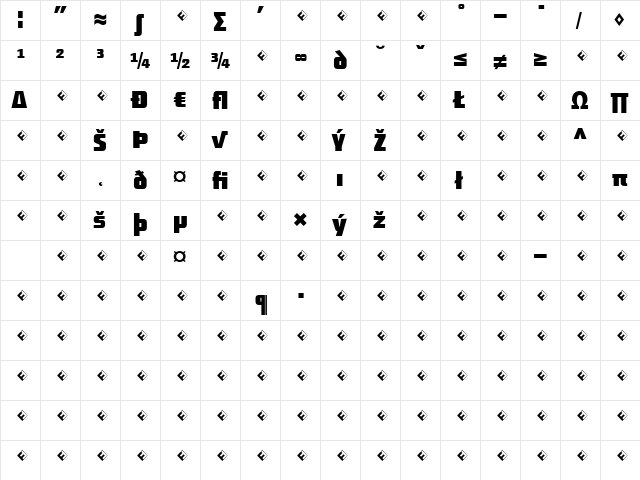
District-BoldAltExpert Regular
| Foundry | FontShop International |
| Designer | Albert Boton |
Design Context for District-BoldAltExpert Typeface
District-BoldAltExpert takes a measured approach to typography — its balanced proportions and neutral character make it a reliable workhorse for both digital and print work. The heavy weight commands attention and anchors typographic hierarchies.